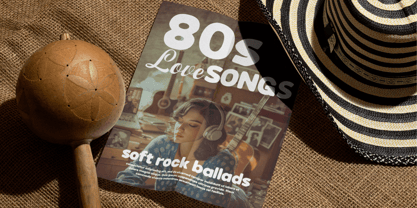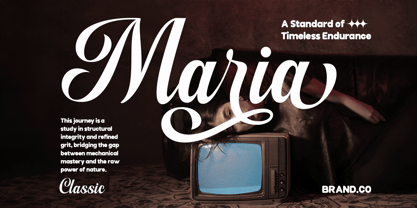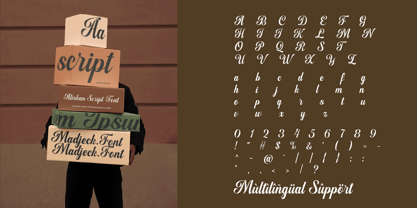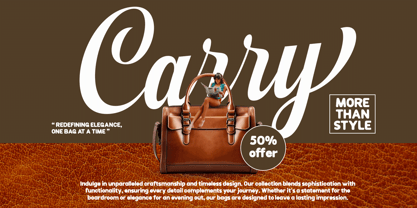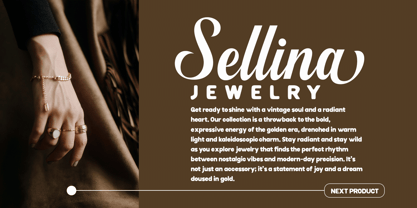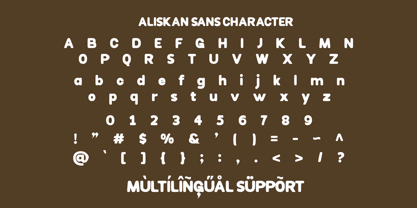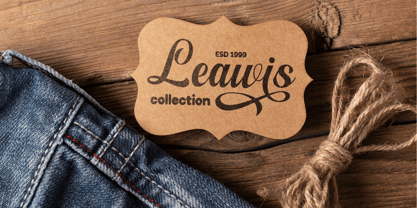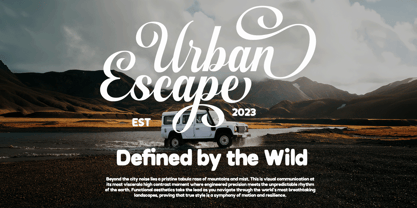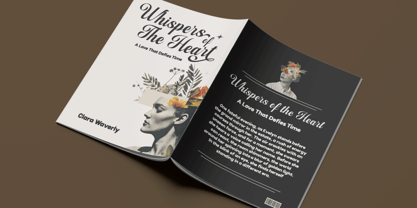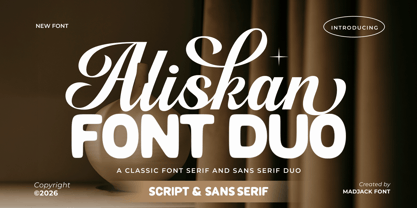
Aliskan Sans
by madjack.font
The Aliskan Sans Font Family was designed by Zaki Muhammad and published by madjack.font. Aliskan Sans contains 2 styles and family package options. More about this family
Aliskan Font Duo is a beautiful combination of elegant script and modern sans serif styles, designed to bring timeless sophistication to your creative projects. With its smooth curves, stylish ligatures, and bold, clean companion font, Lestina strikes the perfect balance between classic beauty and contemporary charm.
Ideal for branding, logos, wedding invitations, packaging, fashion editorials, social media, and luxury design projects, this font duo delivers a classy and versatile look that effortlessly stands out.